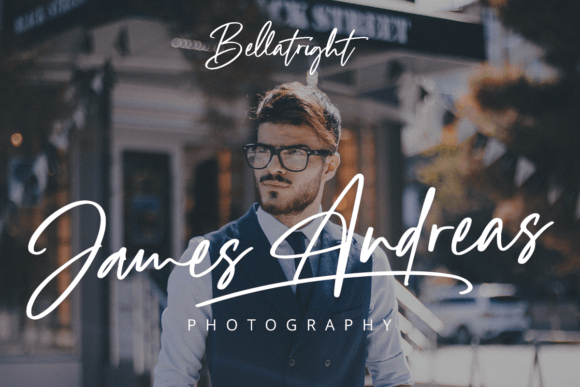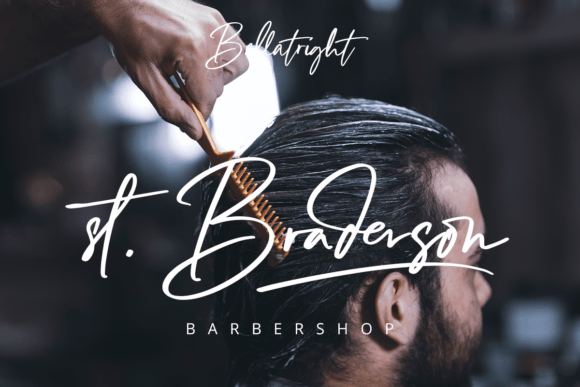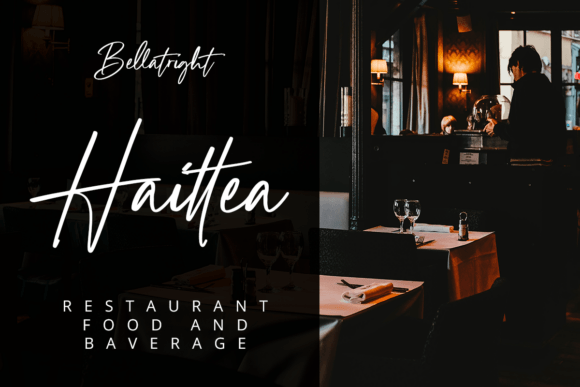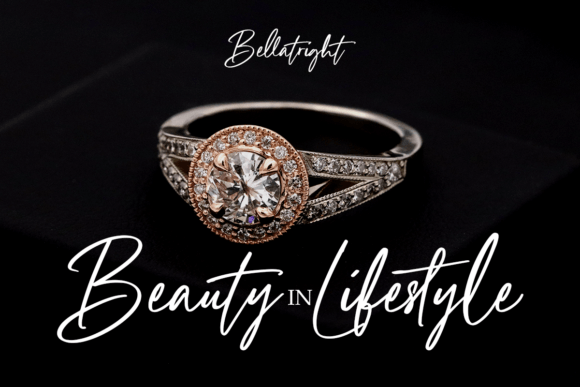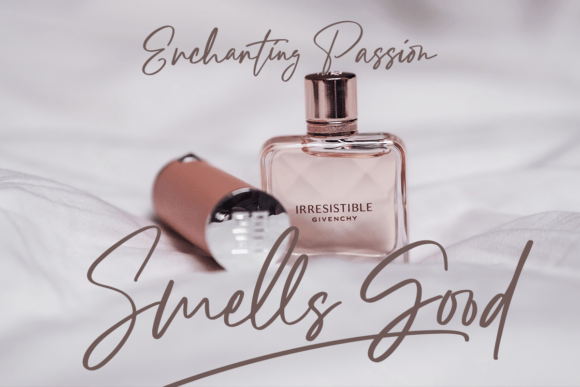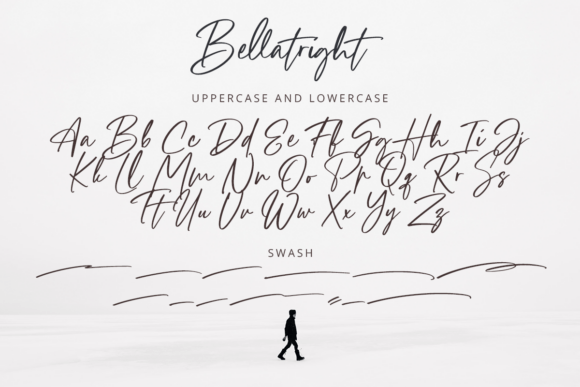
The Elegance of Bellatright Font: A Designer’s Delight
I’ll never forget the time I was working on a wedding invitation project, and my client asked for a font that exuded elegance and charm. I scoured the internet, trying out font after font, but nothing seemed quite right. That was until I stumbled upon the Bellatright Script Font. Its flowing, handcrafted strokes immediately caught my eye, and I knew I had found the perfect fit. In this article, I’ll share my experience with Bellatright Font, its features, and how to make the most of it in your design projects.
A Personal Review of Bellatright Font
- ✨ Elegant and charming: Bellatright Font is perfect for adding a touch of sophistication to any design project.
- ✅ Handcrafted strokes: The font’s unique, handcrafted strokes give it a personal and artistic feel.
- 💫 PUA encoded: The font is PUA encoded, making it easy to access all the cute glyphs and swashes.
- 🎨 Versatile: Bellatright Font is ideal for a variety of design projects, including wedding invitations, branding, logos, greeting cards, and more.
While Bellatright Font is a beautiful font, there are a few things to keep in mind:
- ⚠️ Limited use in very formal or corporate designs: While the font is elegant, it may not be suitable for very formal or corporate designs.
- 🤔 May require some experimentation: To get the most out of the font’s OpenType features, you may need to experiment with different settings and combinations.
The Story Behind Bellatright Font
Bellatright Font was designed with the intention of creating a beautiful, elegant script font that would add a touch of sophistication to any design project. The designer, inspired by the flowing strokes of handwritten calligraphy, crafted a font that would be both elegant and charming. With its PUA encoding and extensive range of glyphs and swashes, Bellatright Font is the perfect choice for designers looking to add a personal touch to their work.
Q: Is Bellatright Font suitable for very formal or corporate designs?
A: While Bellatright Font is elegant and charming, it may not be suitable for very formal or corporate designs. It’s best used in projects where a personal, artistic feel is desired.